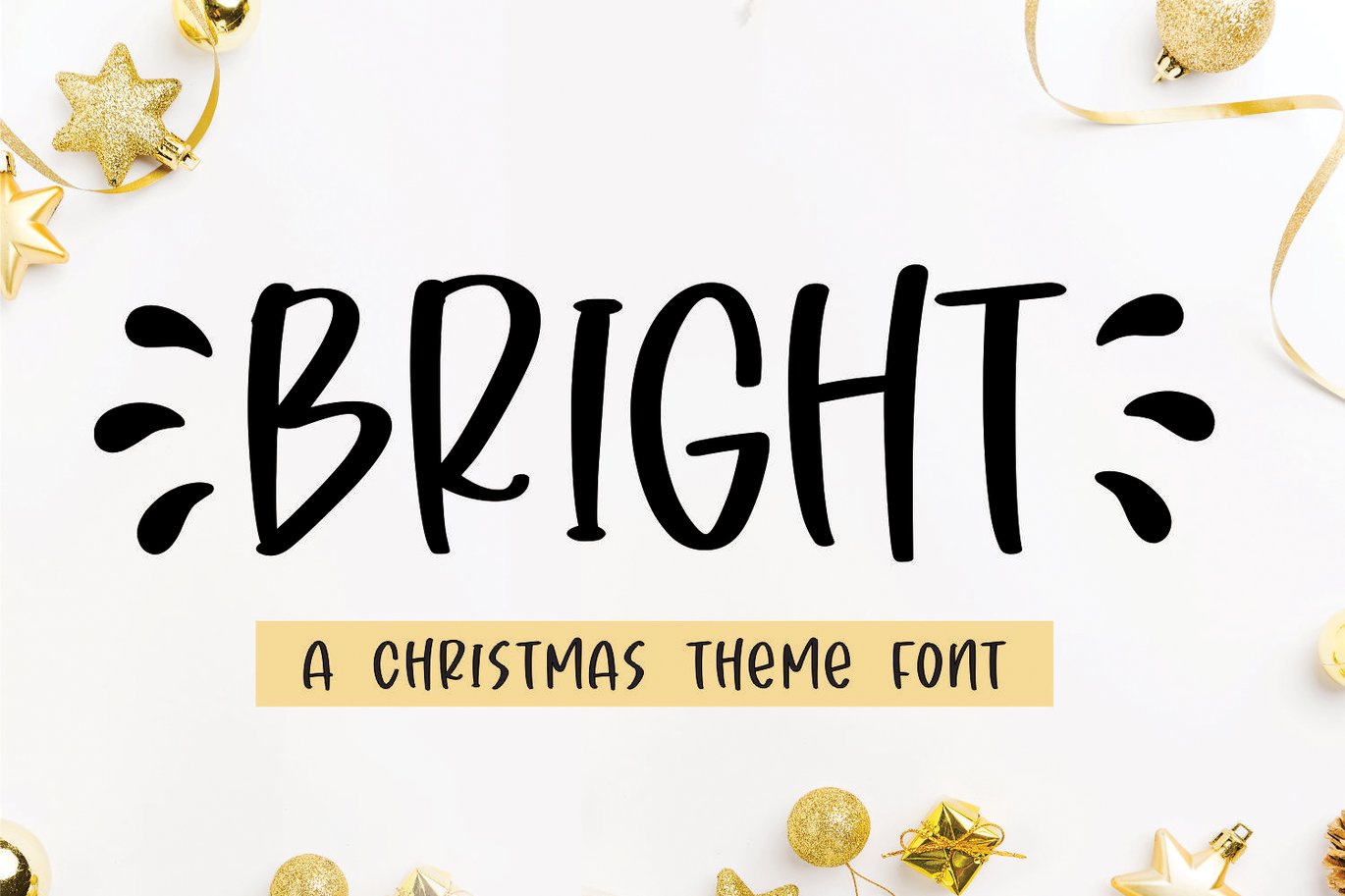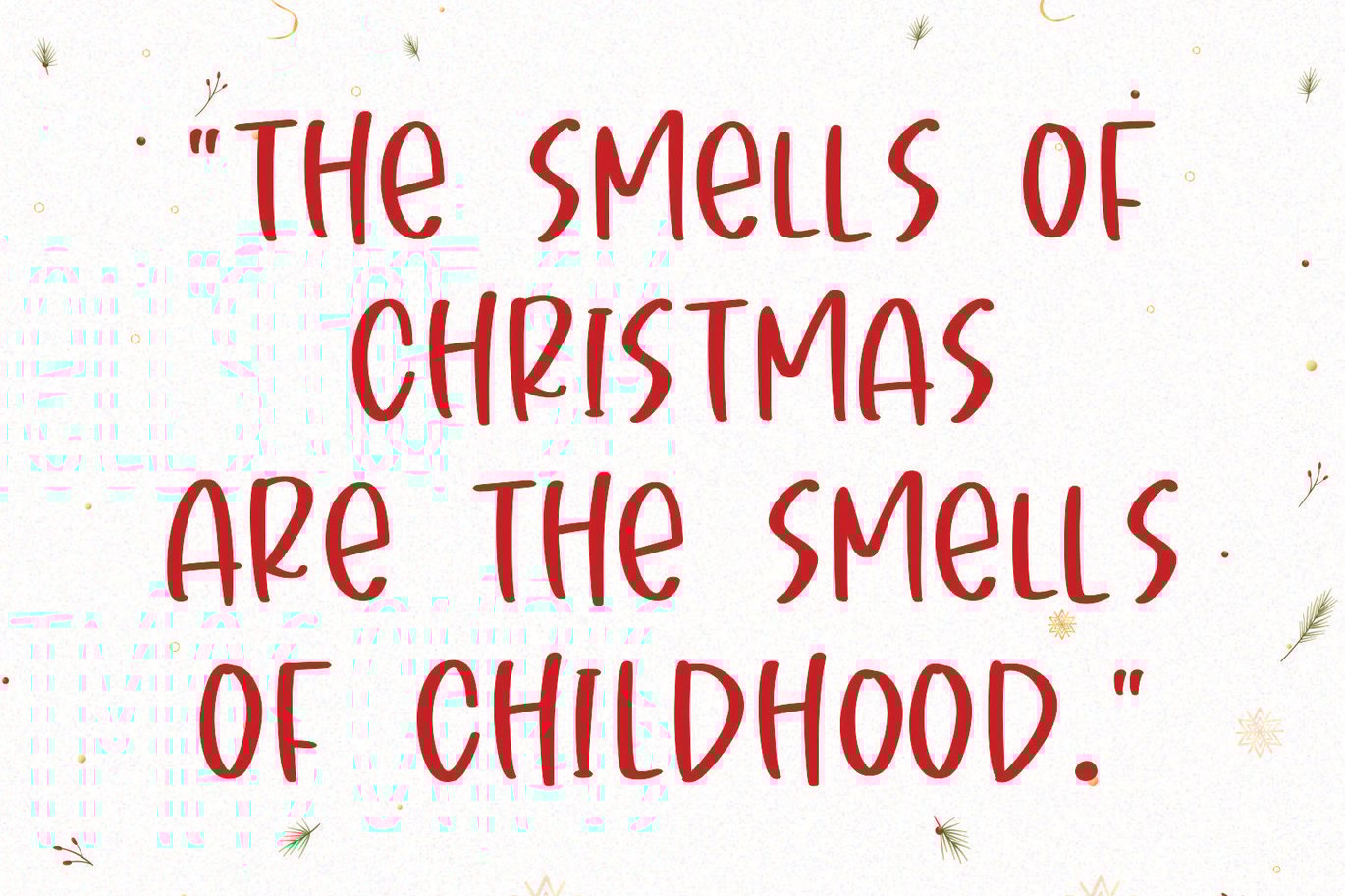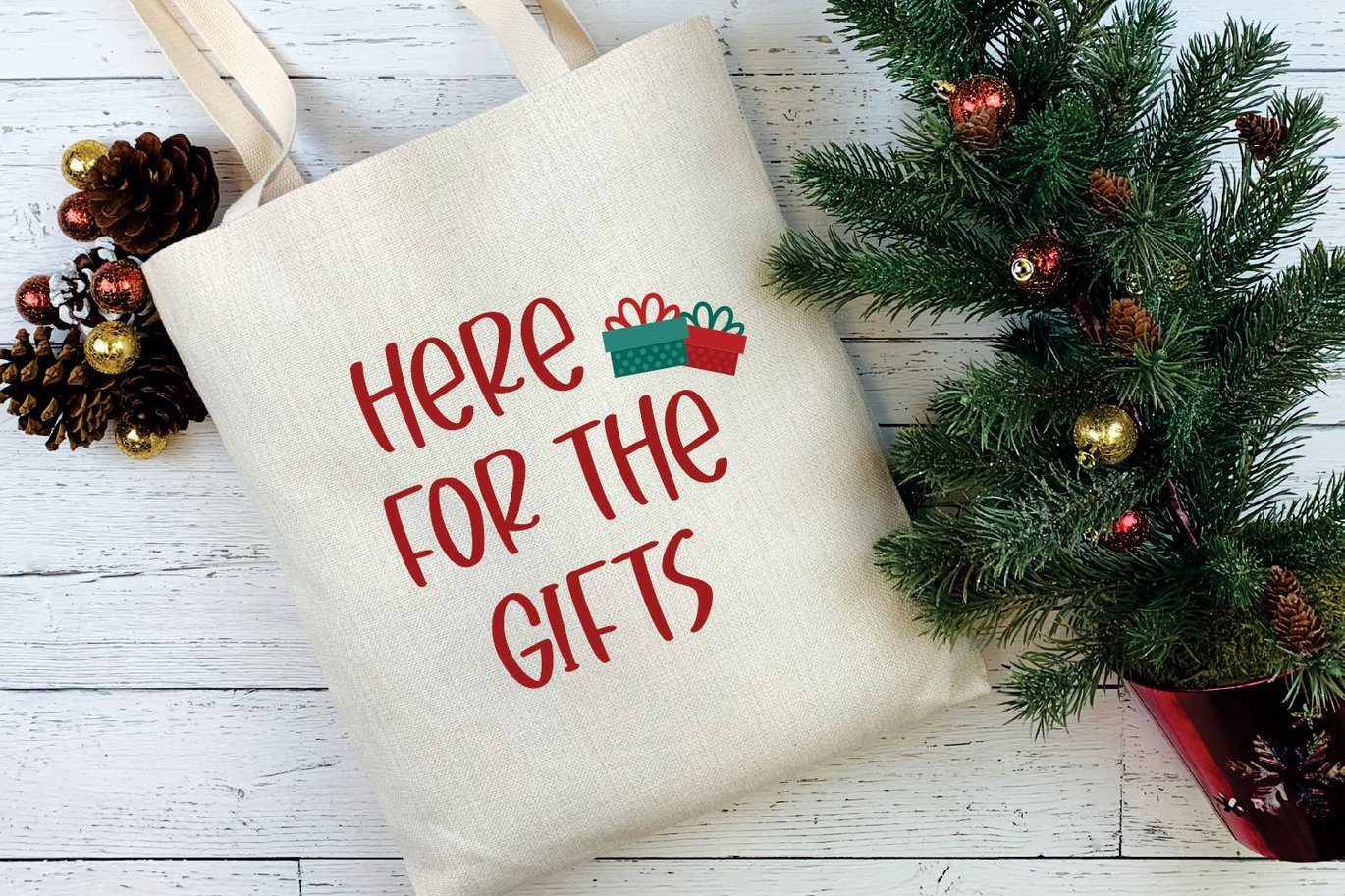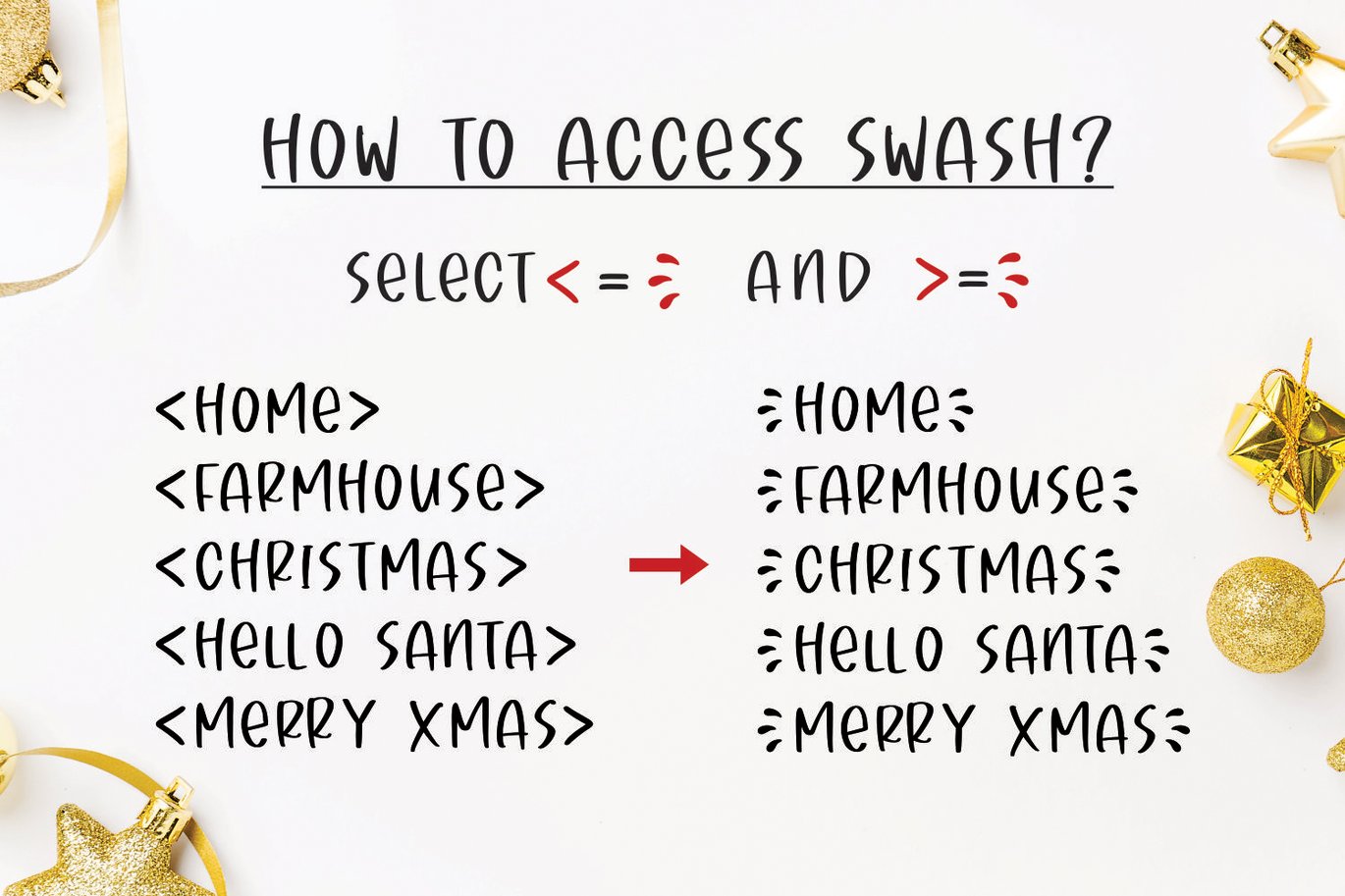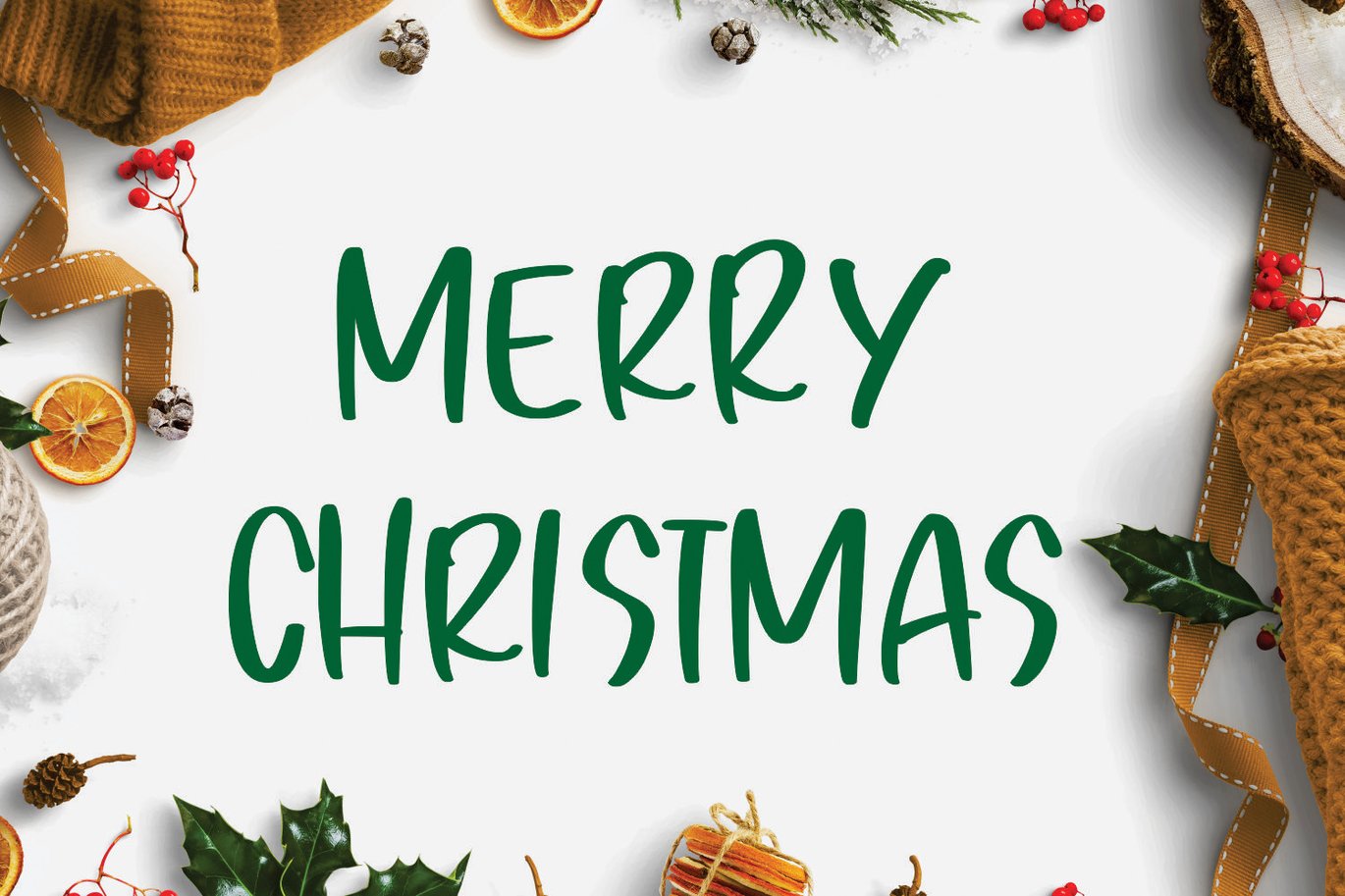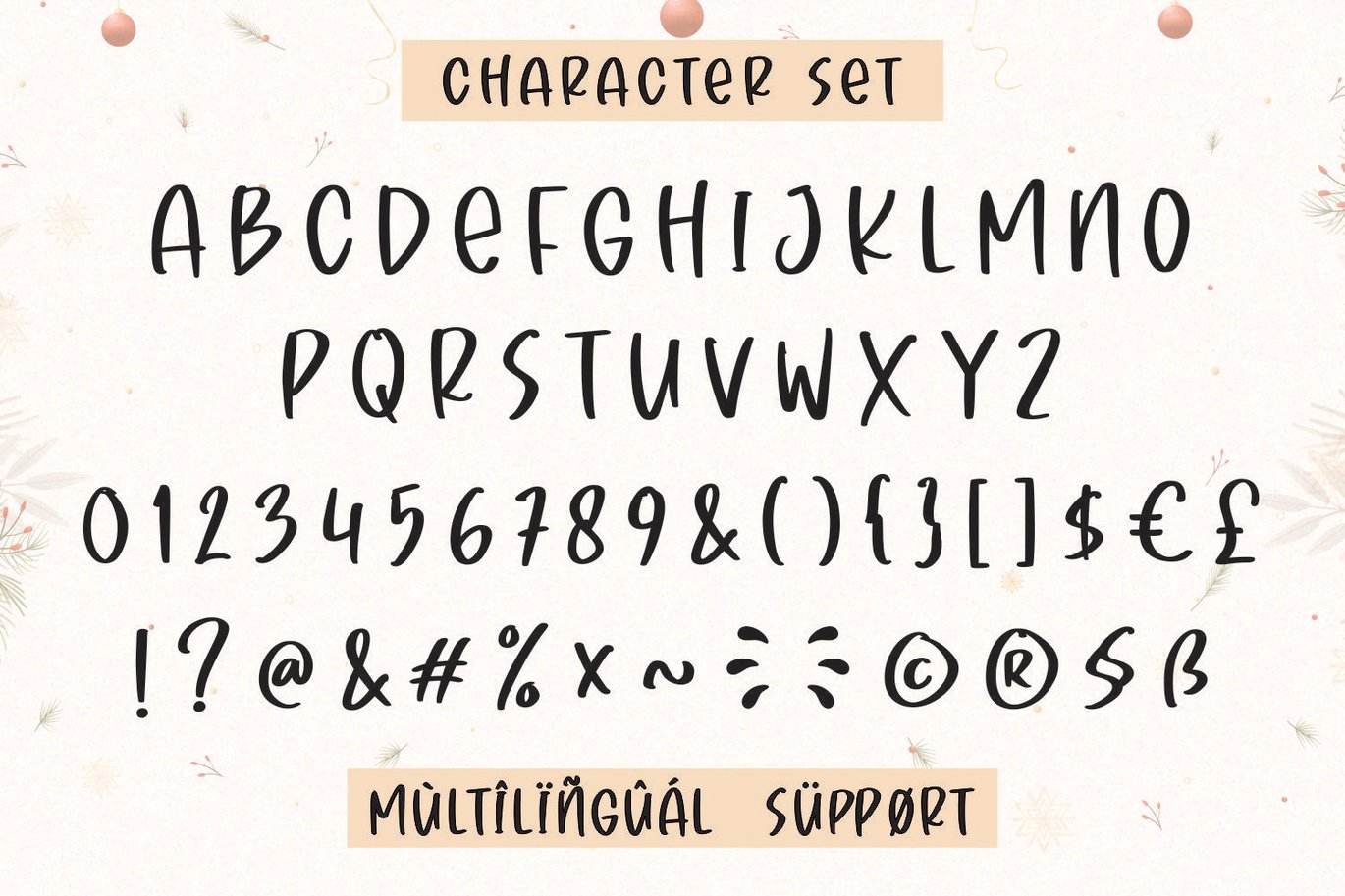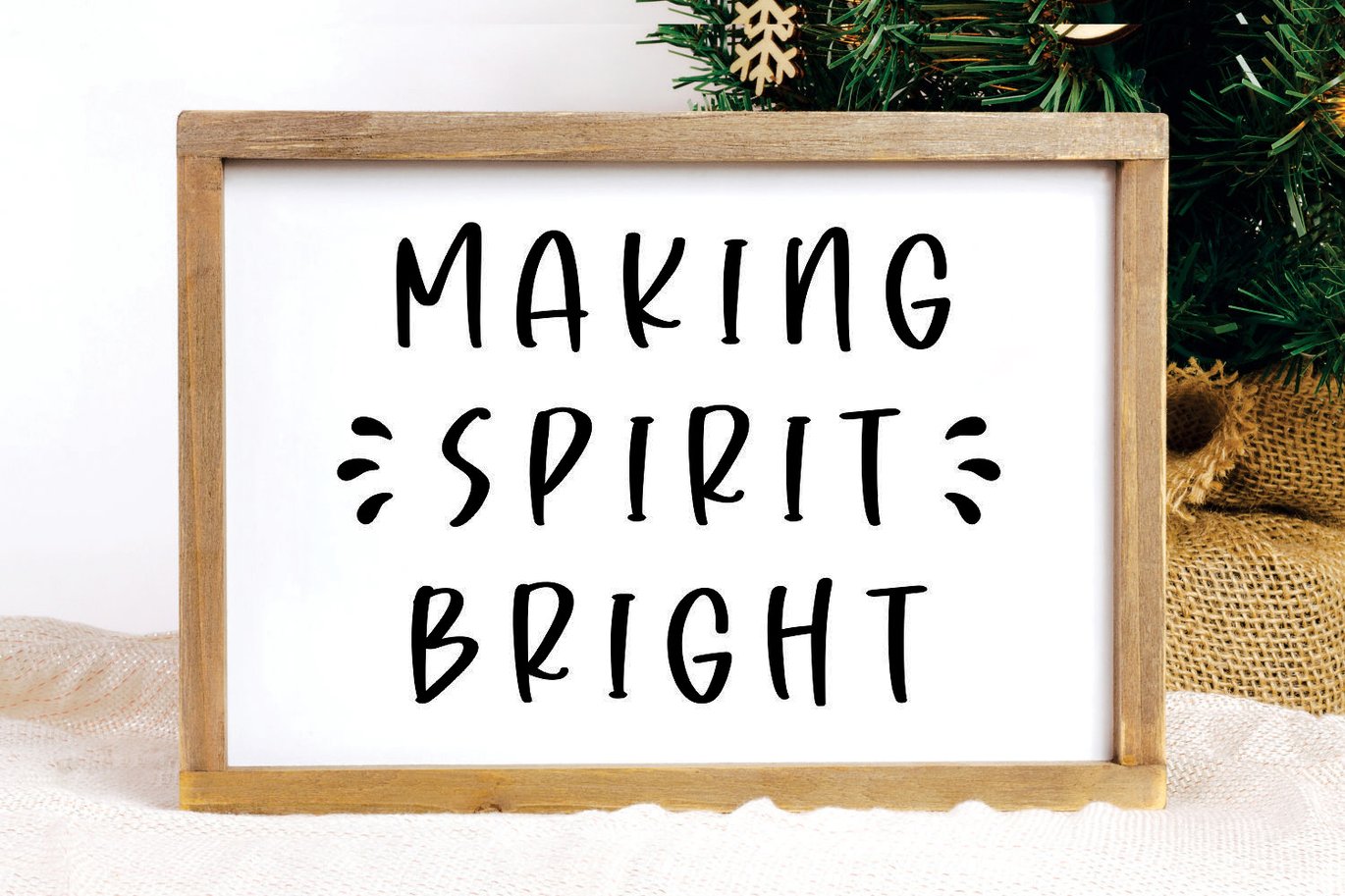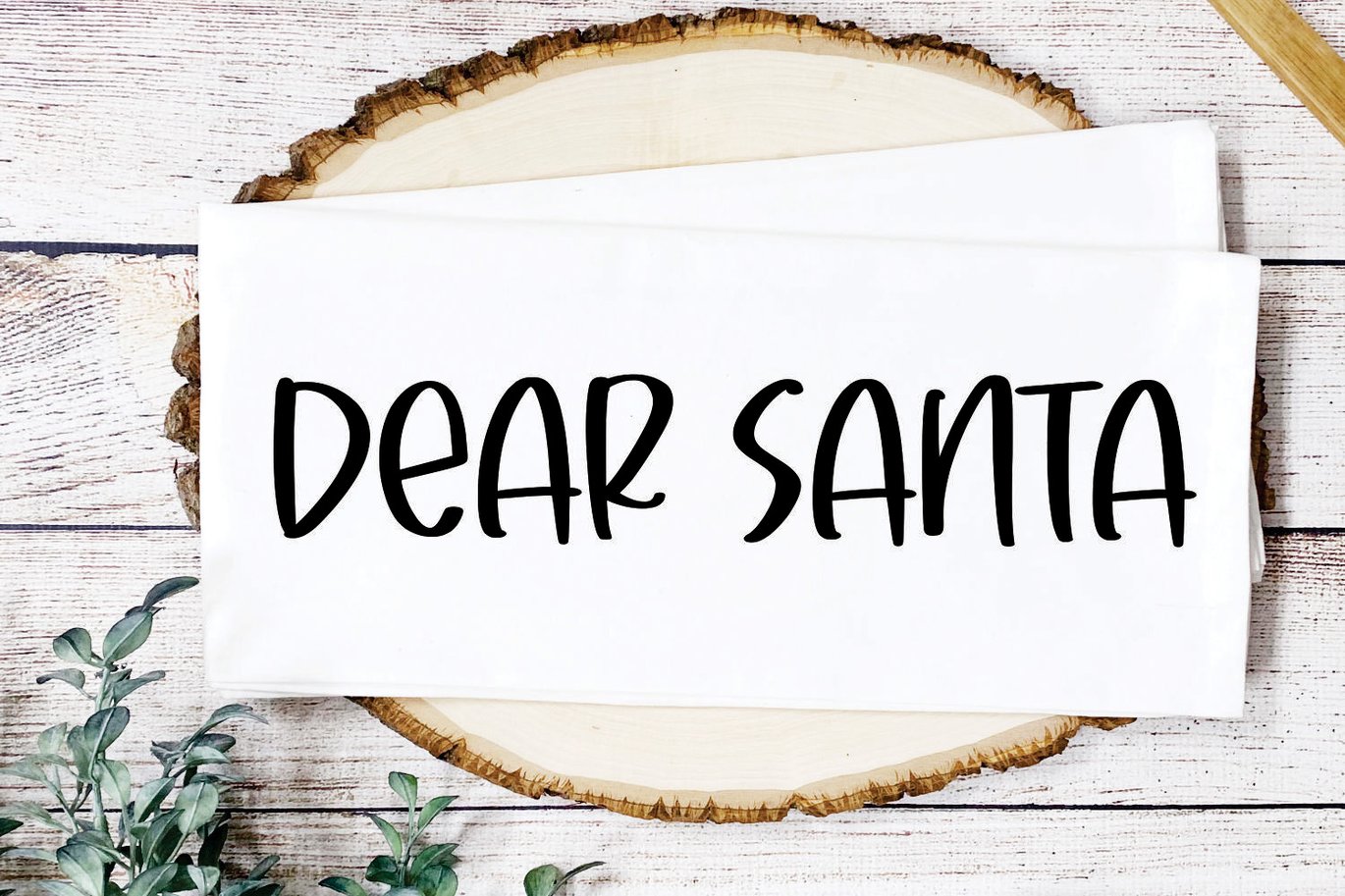
Bright – Christmas Font
Introducing “BRIGHT,” a sweet and quirky display font that perfectly captures the festive spirit of Christmas. With its playful and whimsical design, BRIGHT brings a joyful and magical touch to all your holiday projects. Whether you’re creating Christmas cards, festive banners, or holiday-themed advertisements, this font adds a delightful charm that spreads cheer and warmth.
Bring the magic of Christmas to life with BRIGHT. Perfect for holiday sales, seasonal greetings, and Christmas event promotions, this font will make your messages stand out. Its unique and endearing style is ideal for posters, gift tags, and social media graphics, ensuring your festive designs are eye-catching and memorable. BRIGHT infuses a sense of wonder and excitement into every project, making it a must-have for the holiday season.
Don’t miss out on the chance to add a touch of Christmas magic to your designs with BRIGHT. Embrace the sweet and quirky display font to create enchanting and heartwarming visuals. Perfect for any holiday-themed project, BRIGHT is your go-to choice for spreading joy and festive spirit. Get ready to captivate your audience and celebrate the season with the delightful charm of BRIGHT.